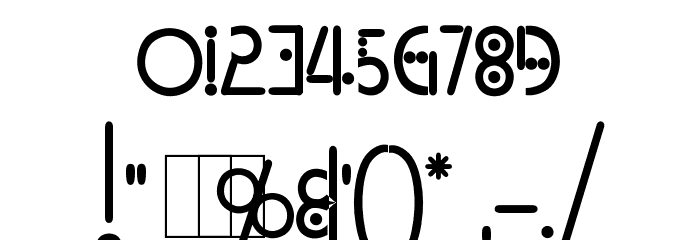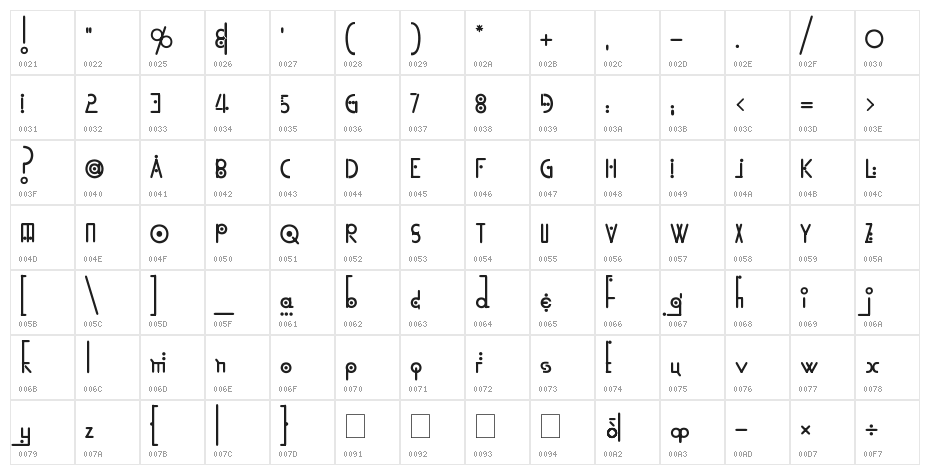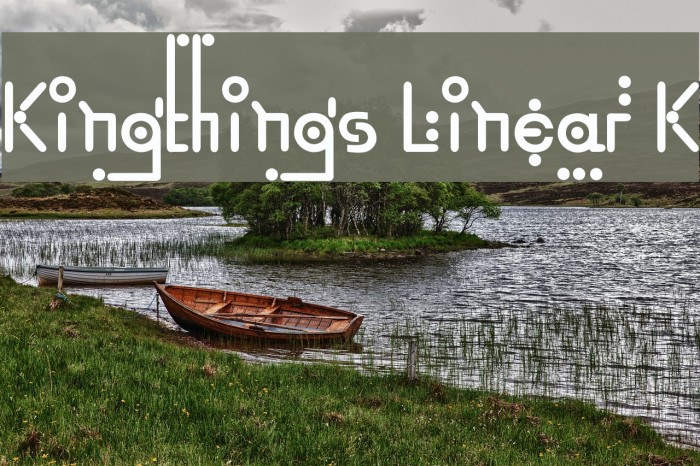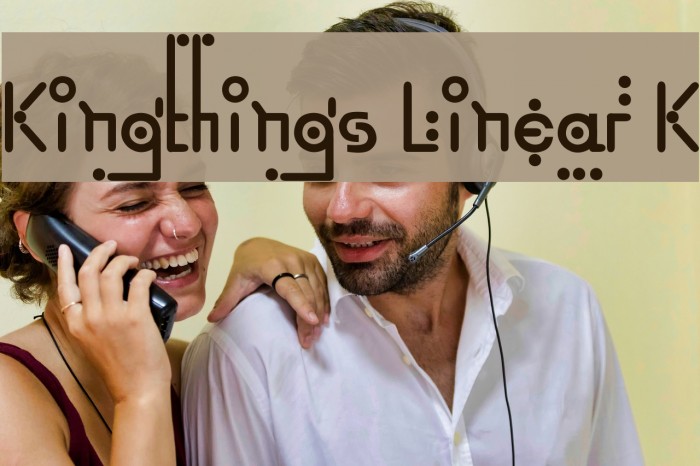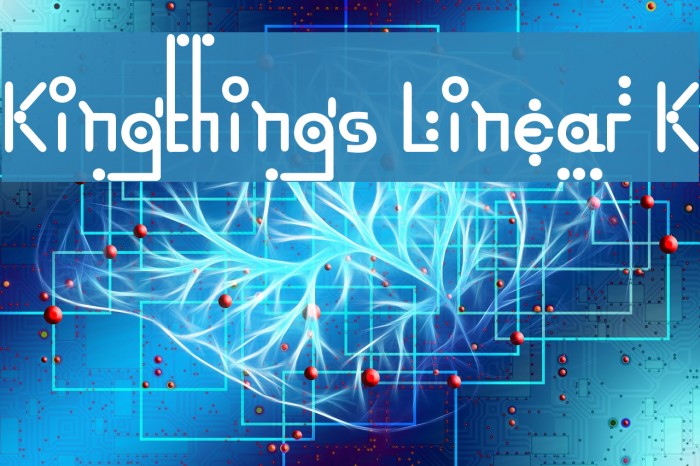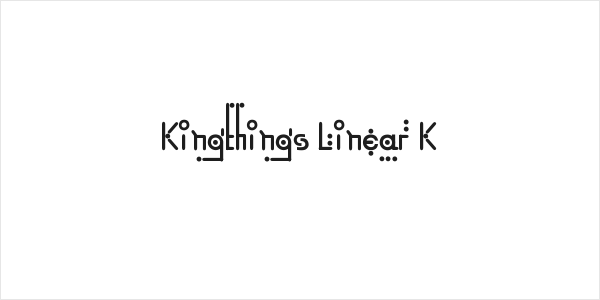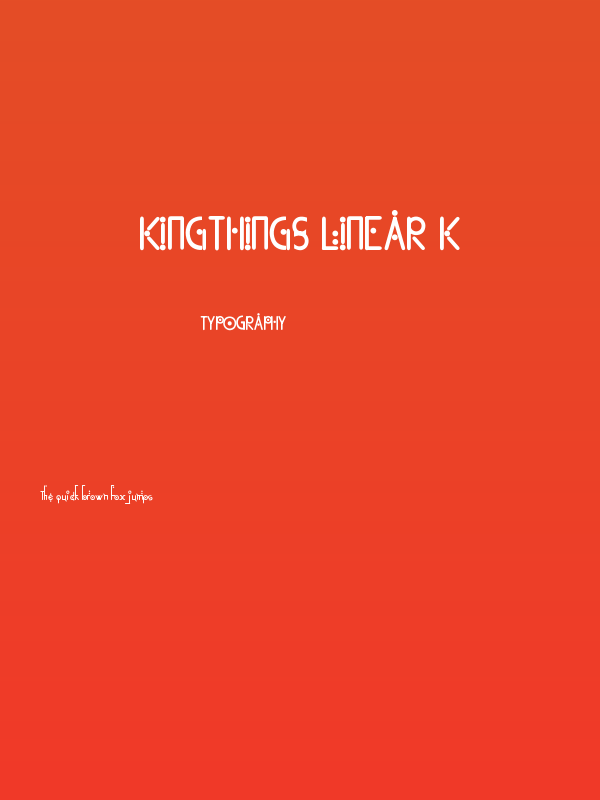
Kingthings Linear K Font
Kingthings Linear K Description
This font features a unique and playful design with a modern twist. The characters are composed of geometric shapes, primarily circles and lines, giving it a distinct and artistic appearance. The uppercase letters are bold and structured, while the lowercase letters maintain a consistent style with added curves and dots for a whimsical touch. Numbers and special characters follow the same geometric theme, ensuring a cohesive look across all elements. The font's design is both eye-catching and versatile, making it suitable for a variety of creative projects.
| Proposed Projects | Ideal for creative projects such as posters, logos, and branding materials that require a modern and artistic flair. |